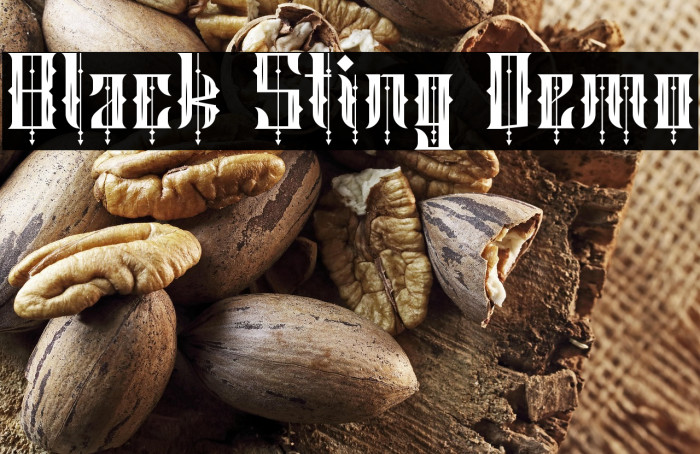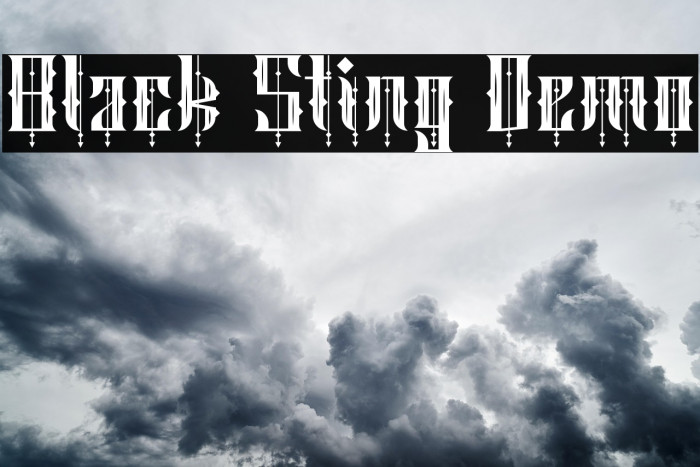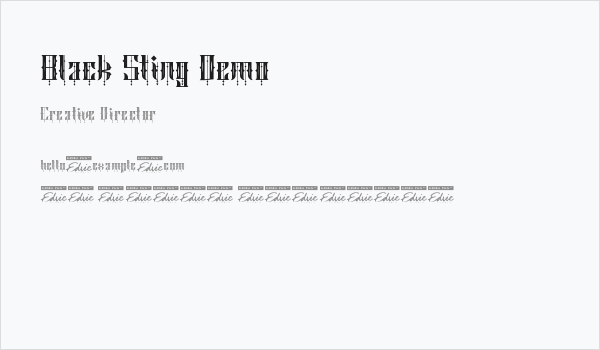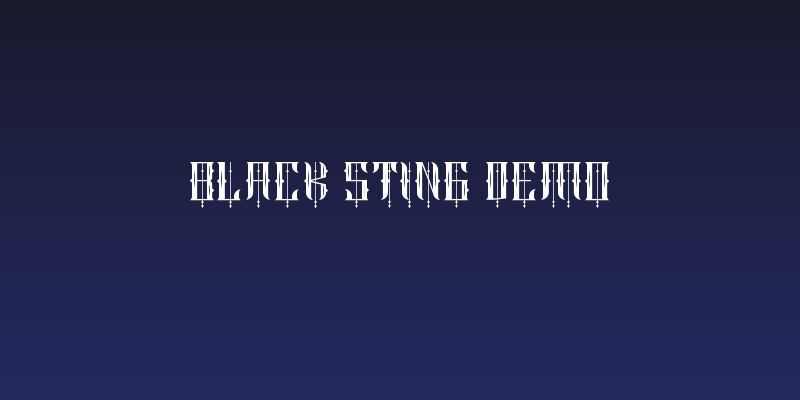
Black Sting Demo Font
Black Sting Demo Description
This font features a striking and bold design with a gothic and medieval flair. The characters are highly decorative, with intricate details and sharp, angular lines that create a sense of drama and intensity. The uppercase and lowercase letters maintain a consistent style, with elongated vertical strokes and pointed serifs that give the font a distinctive, edgy appearance. The numbers and special characters follow the same ornate design, ensuring a cohesive look across all text. This font is ideal for projects that require a strong visual impact and a touch of historical or fantasy elements.
| Proposed Projects | Ideal for fantasy-themed designs, book covers, posters, and branding that requires a strong, historical aesthetic. |